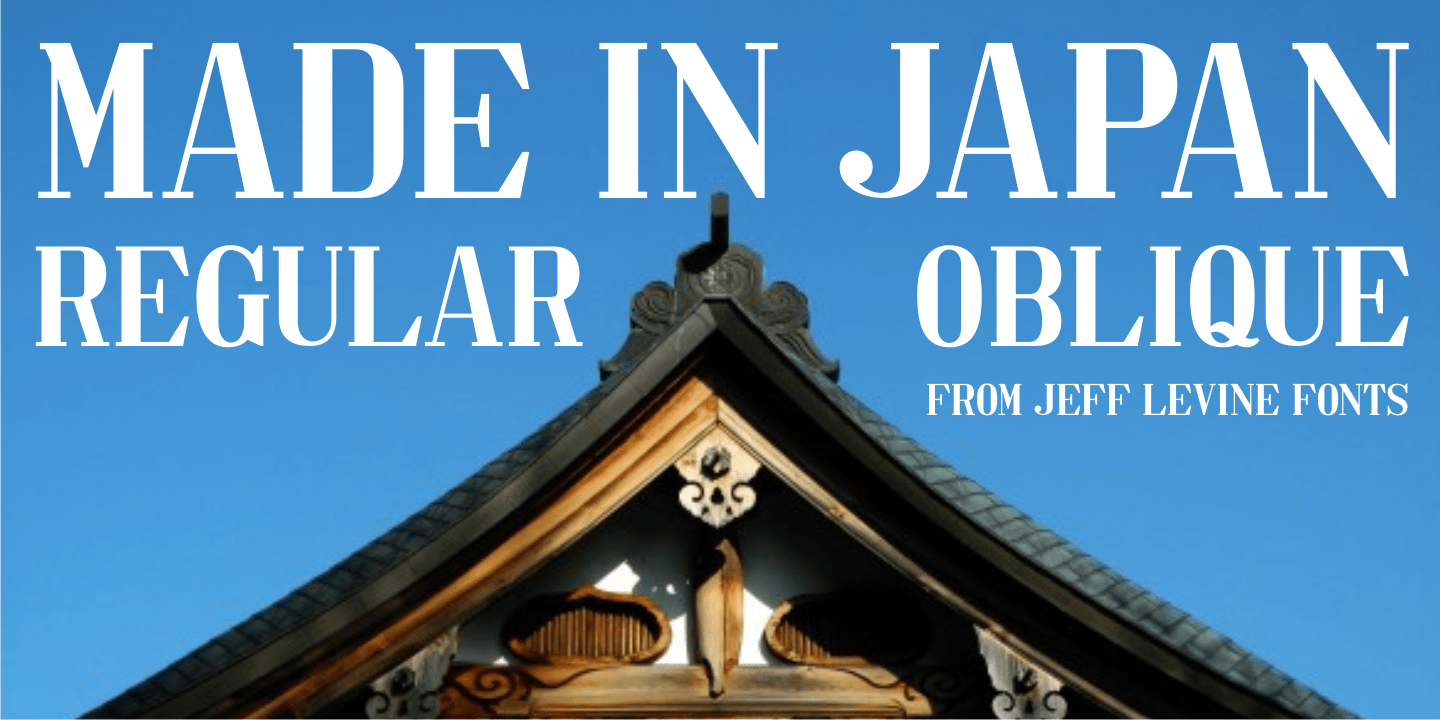
Made in Japan
A set of rubber stamp letters, figures and punctuation used for marking electrical or communications equipment [and made in Japan] is the basis for this serif typeface.
Varying widths and some letters in more of a block style than rounded are typical of Japanese packaging text from the 1950s and 1960s. Available in regular and oblique styles.